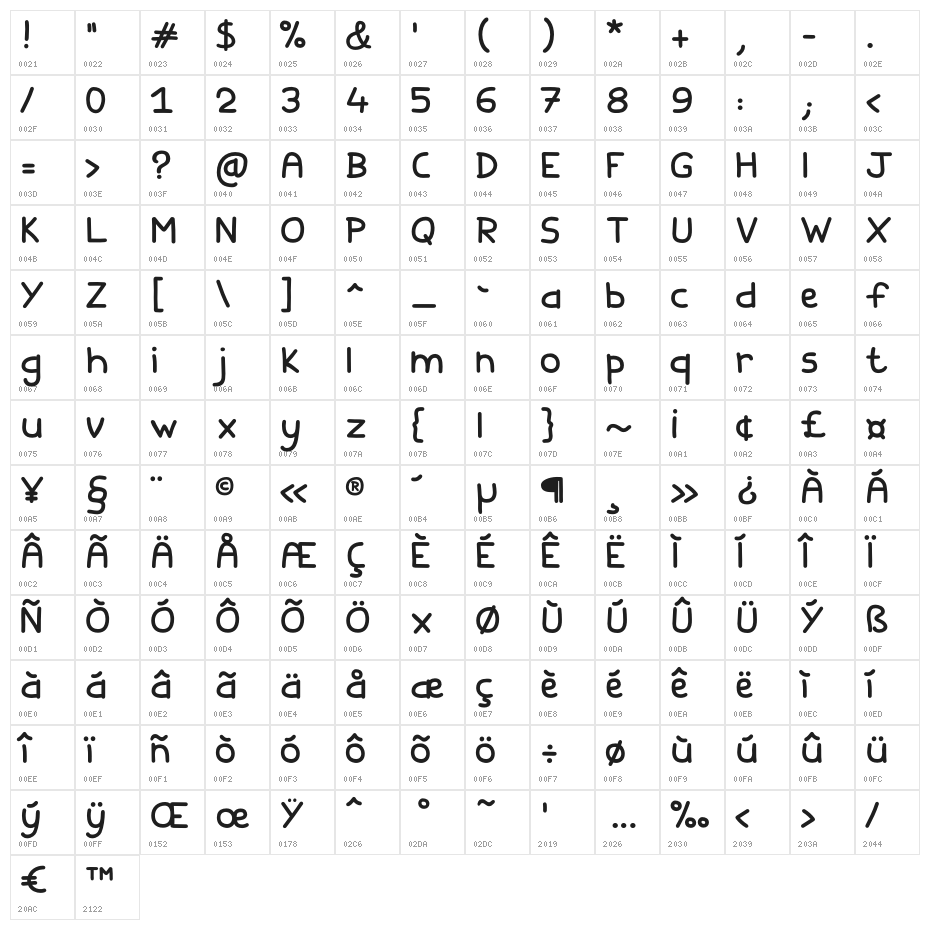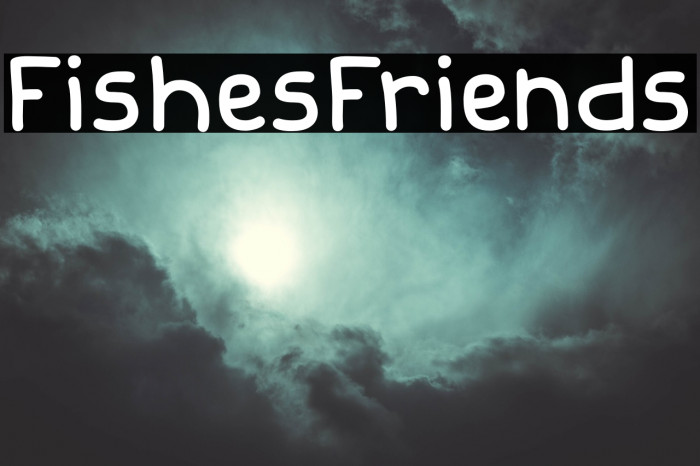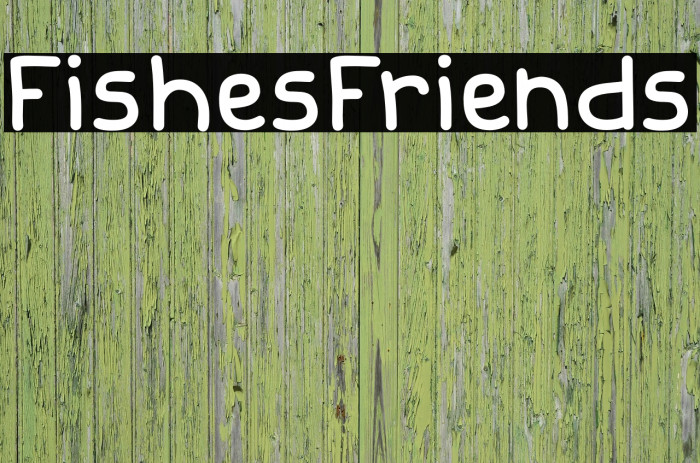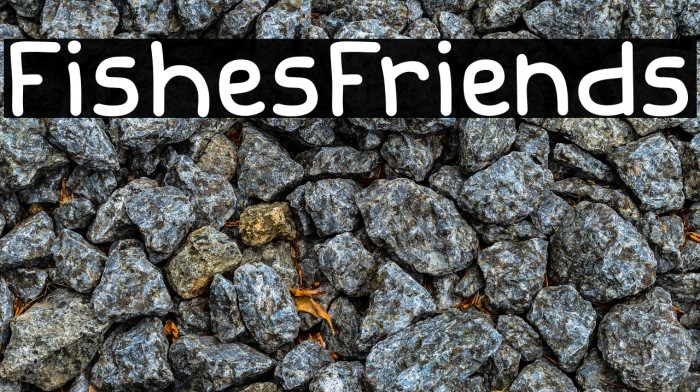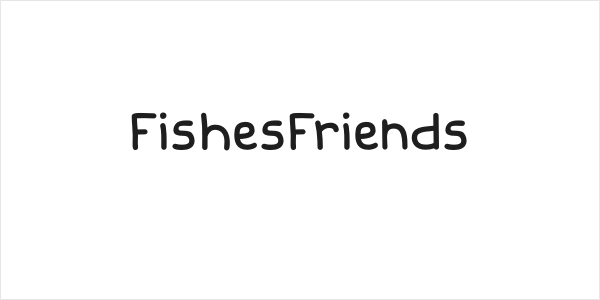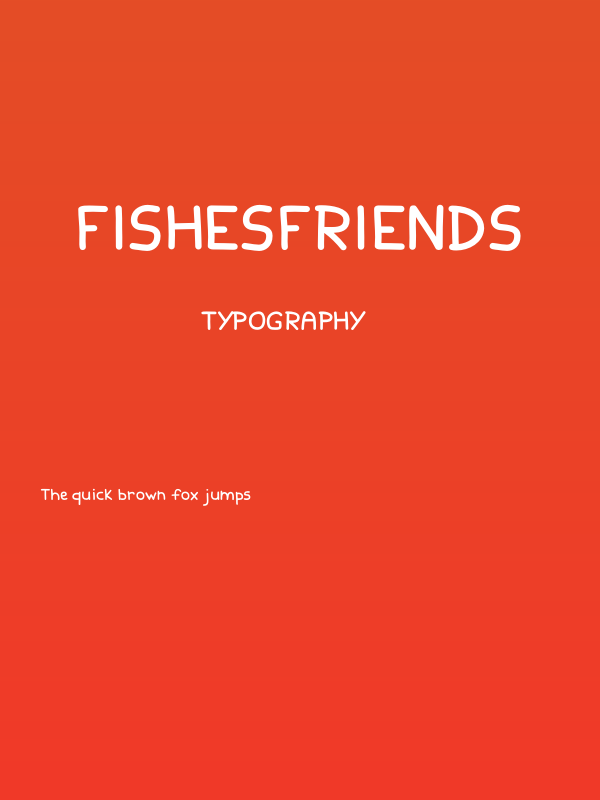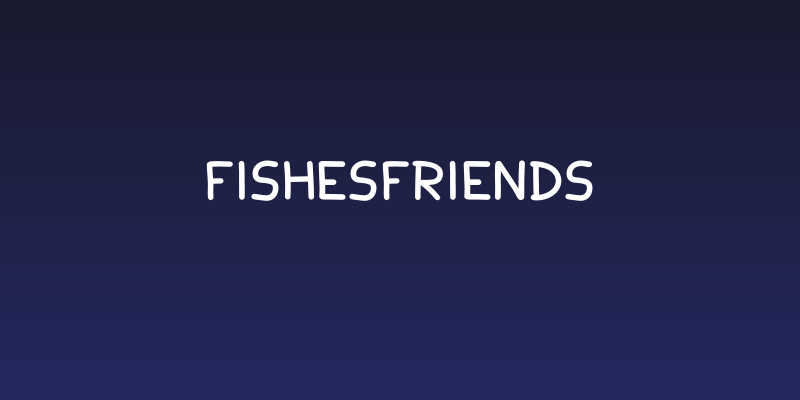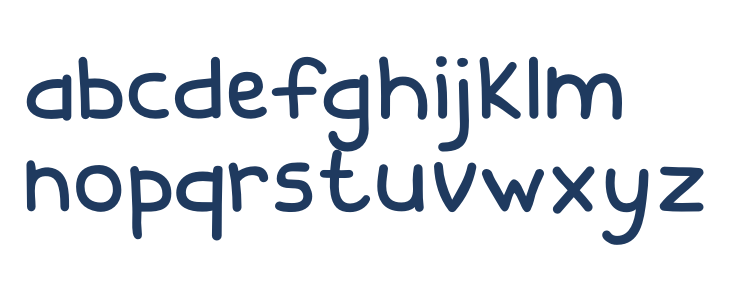
FishesFriends Font
FishesFriends Description
This playful and rounded font features a casual, handwritten style that exudes a friendly and approachable vibe. The letters are characterized by their smooth curves and consistent stroke width, giving them a uniform appearance. The uppercase and lowercase letters maintain a harmonious balance, while the numerals and special characters seamlessly integrate into the overall design. This font's simplicity and charm make it ideal for projects that require a personal touch, such as children's books, invitations, or playful branding materials. Its readability and distinct style ensure it stands out while remaining easy on the eyes.
| Use Case | Headlines, Invitations, Branding |
| Proposed Projects | Ideal for children's books, playful branding, invitations, and casual designs. |